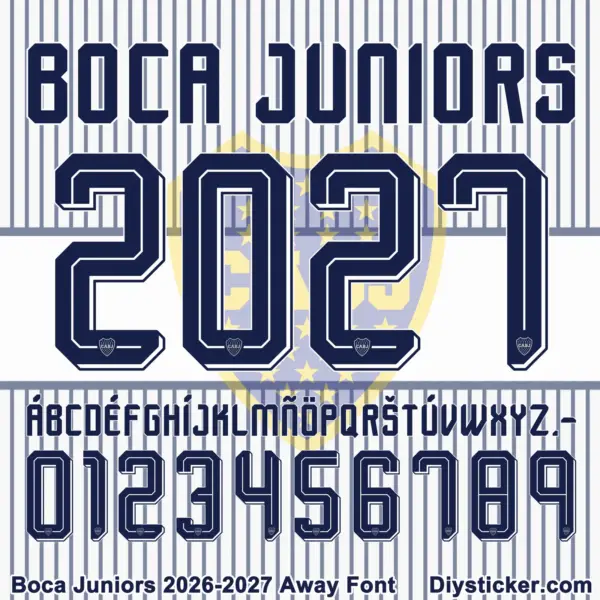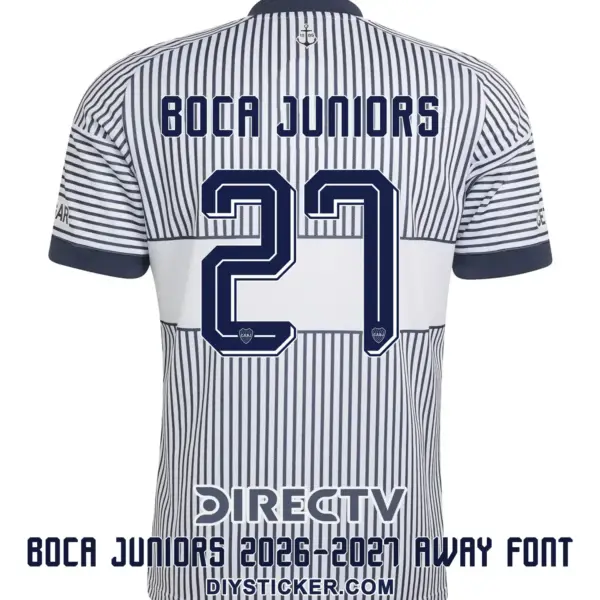
Capture the iconic blue and gold spirit of Xeneize with the official Boca Juniors 2026-2027 away font download! Custom-tailored for kit creators, vinyl cutters, and garmentdecorators, this typography package features the complete name and numbering set worn on the 2026-27 away jersey. Rendered in dark navy blue with a striking layered 3D bevel effect, these bold block numbers incorporate the official C.A.B.J. crest embedded at the bottom. It is the premier custom jersey printing font Boca Juniors choice for heat press transfers, DTF printing, and custom vinyl production.
Elevate Your Kit Customization with the Boca Juniors 2026-2027 Away Font
Upgrade your custom sports apparel catalog with the official match-day cup typography for Boca Juniors! This digital asset pack delivers a complete Boca Juniors 2026-2027 away font download engineered for high-end kit decoration. Featuring aggressive, solid uppercase letterforms engineered for player nameplates alongside bold numeric glyphs accented by clean inner borders, layered drop shadows, and the official circular CABJ badge at the base of each digit, this design provides outstanding contrast against both light and dark kit fabrics.
Comprehensive Character Mapping
1. A-Z Uppercase Alphabet: Heavy, high-visibility block sans-serif letterforms built for optimal visibility across back nameplates.
2. 0-9 Custom Inlined Squad Numbers: Bold numeric glyphs styled with thin inner contour lines, layered 3D bevel outlines, and the official CABJ crest embedded at the base (supplied as Boca Juniors jersey numbers vector).
3. Special Accents & Diacritics: Complete set of punctuation marks and international accents (Á, Č, Ç, É, Ğ, Í, Ñ, Ö, Š, Ú, Ž, ., -) to accurately render star player nameplates using this custom jersey printing font Boca Juniors package.